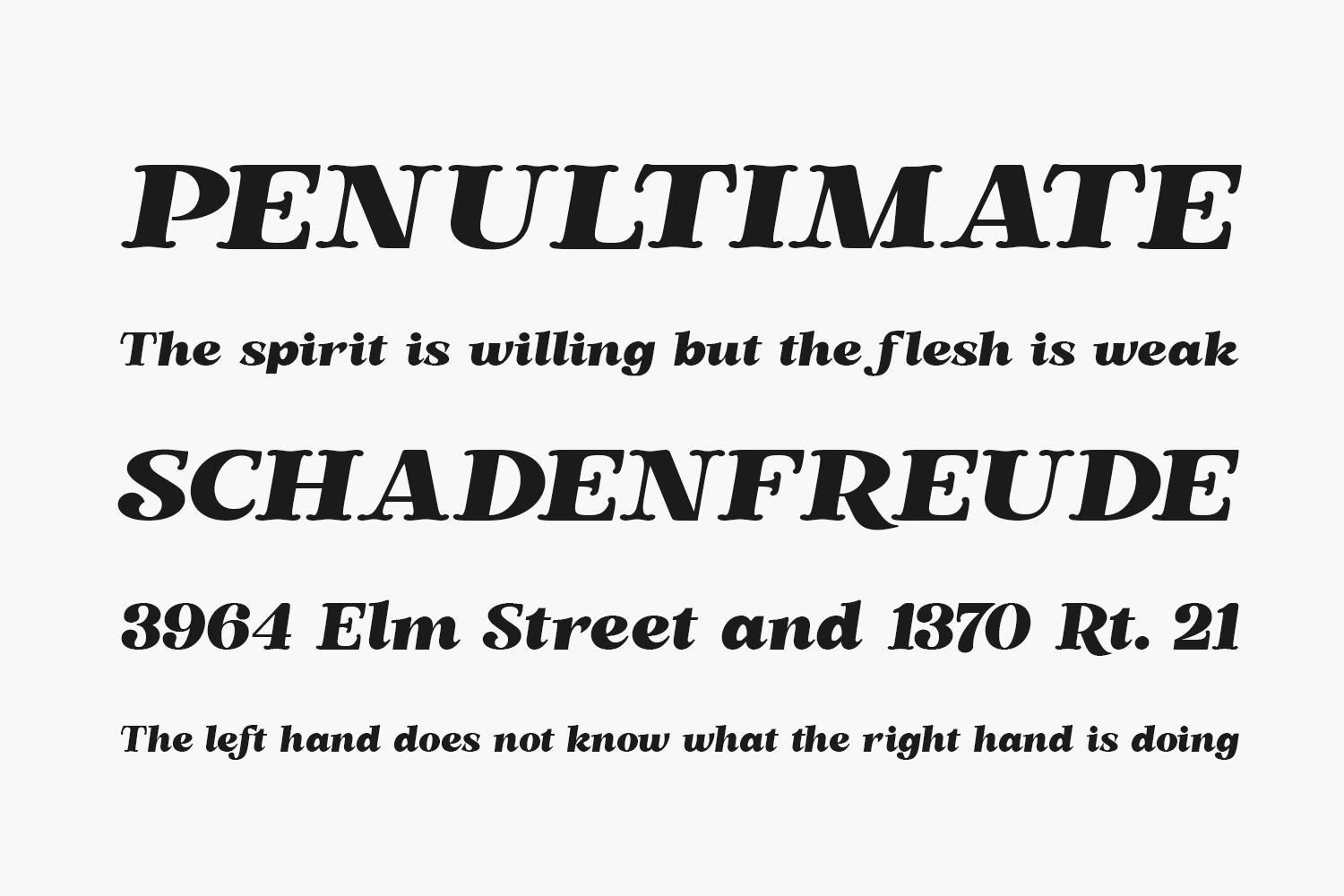
The Bringa Free Font – Playful Retro Display Typeface for Creative Design
The Bringa is a lively and expressive retro-style display font designed by Alit Design to bring nostalgic charm and vibrant personality to your creative projects. With its bold letterforms, playful detailing, and vintage-inspired structure, this free decorative typeface works perfectly for crafting eye-catching logos, posters, social media graphics, packaging labels, and more. Available in TTF format — ideal for designers seeking a fun, dynamic font that instantly adds character and flair to any layout.
Why Choose The Bringa?
- Vibrant Retro Style: Combines bold shapes with vintage detailing for a nostalgic, colorful appearance perfect for fun visuals.
- Ideal for Vintage Branding: Perfect for retro brands, event posters, or toy packaging needing a cheerful tone.
Where to Use The Bringa?
The Bringa shines across a variety of creative applications:
- Logos & Branding: Adds energy to brand identities for lifestyle blogs, vintage studios, or boutique shops needing a playful tone.
- Packaging Design: Great for product labels on candies, mugs, novelty items, or children’s toys requiring a whimsical look.
- Poster Design: Designed for visibility — makes headlines pop in outdoor advertising and event banners.
- Social Media Graphics: Creates bold text overlays for Instagram Stories, TikTok videos, or YouTube thumbnails with a fun appeal.
- Editorial Headers: Stands out in blog headers, magazine covers, and digital banners with a hand-drawn, retro charm.
Design Tips with The Bringa
- Glyphs: Uppercase (A-Z), lowercase (a-z), numerals, punctuation, basic Latin characters.
- Language Support: English, Spanish, French, German.